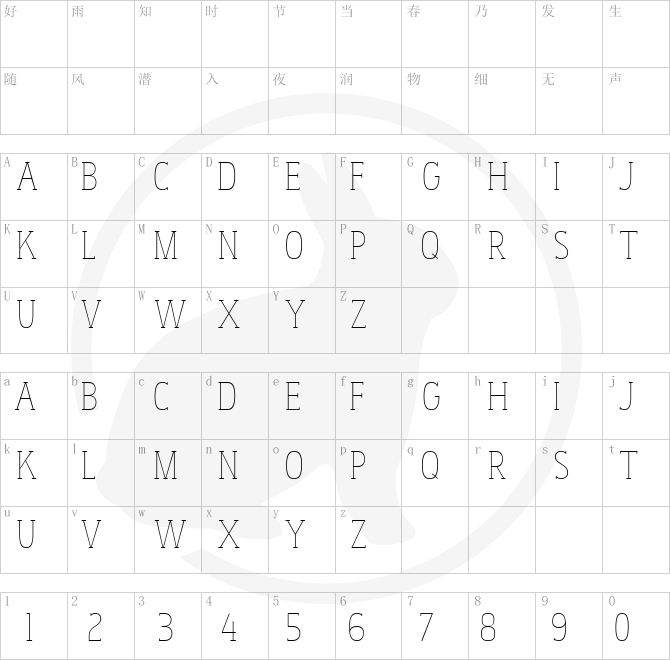
- Font Name:madame klara
madame-klara.ttf is a very beautiful artistic font, madame-klara.ttf is widely used in the design and printing of various books and pictures,madame-klara.ttf has a strong visual impact,madame-klara.ttf is a commonly used font in newspapers, magazines and books, and is used in posters, e-commerce Poster design, store design, logo design, font design and other fields.madame-klara.